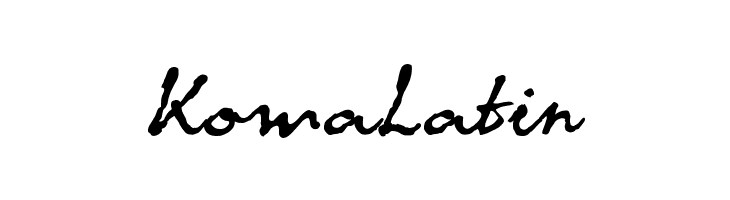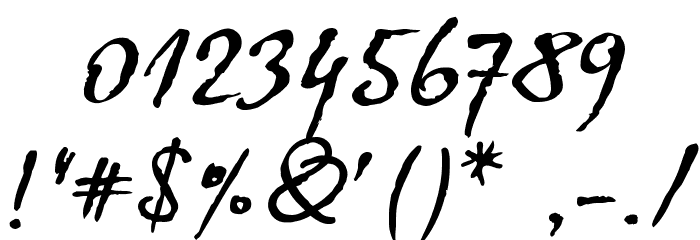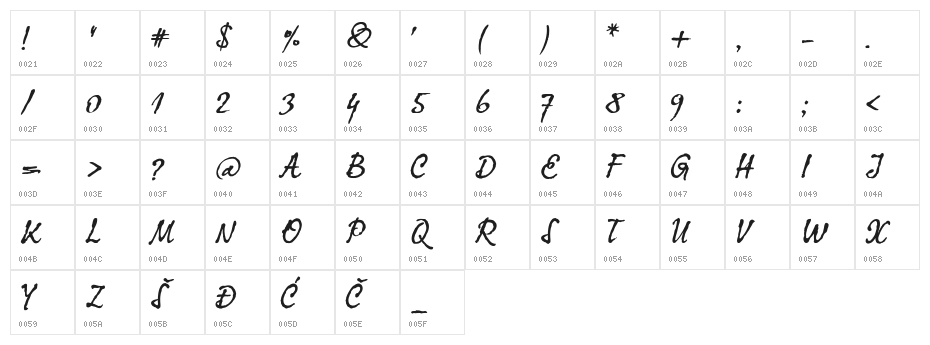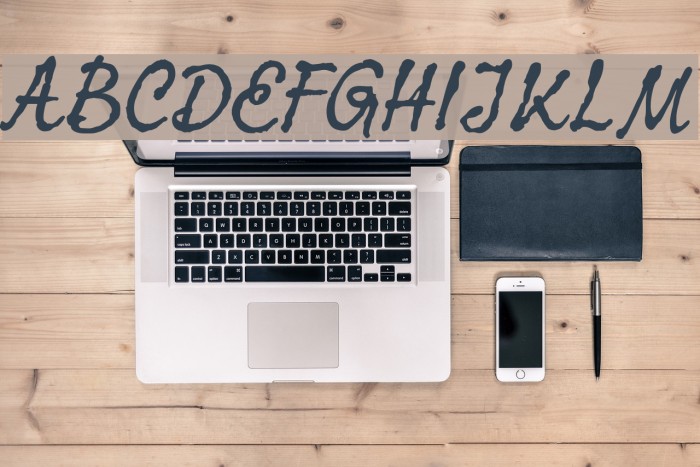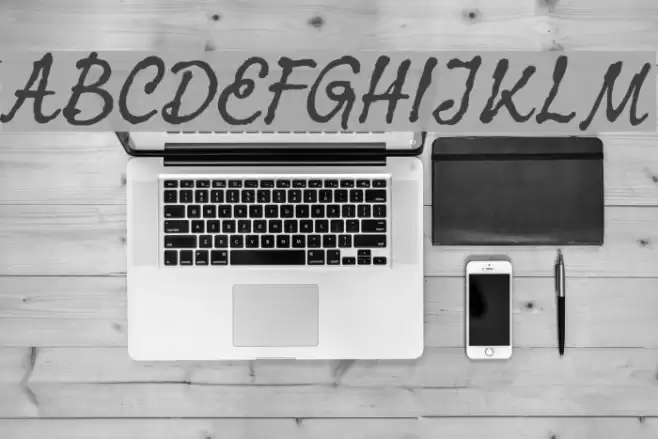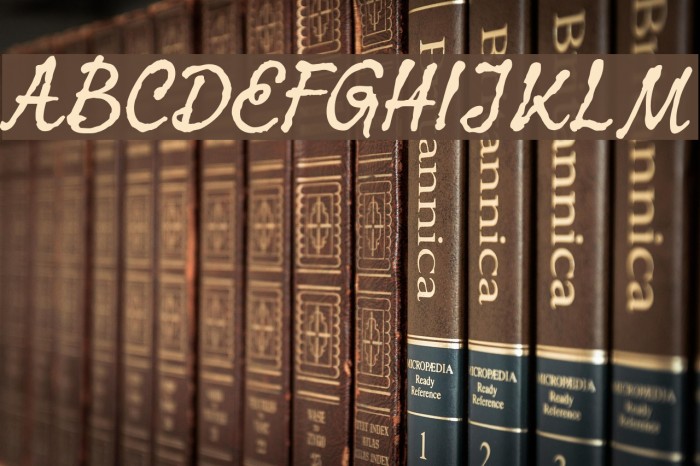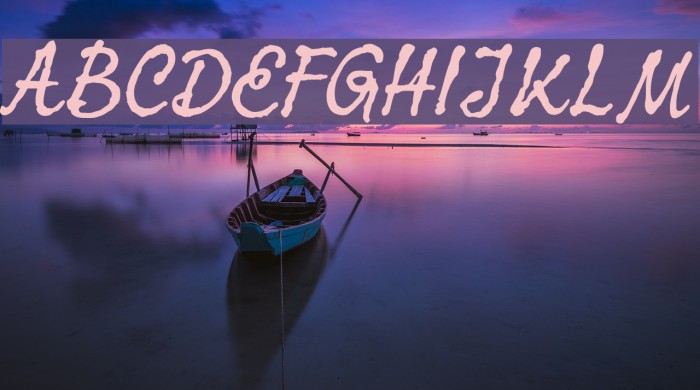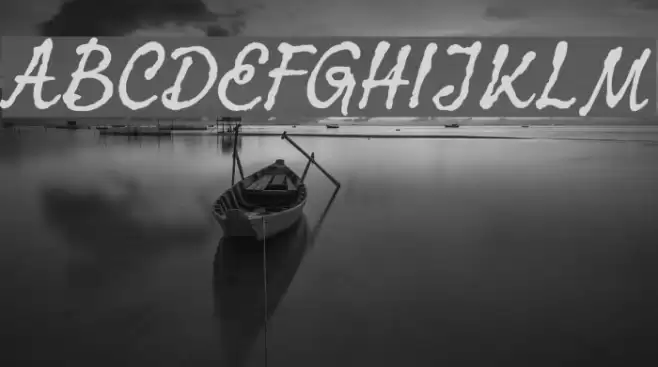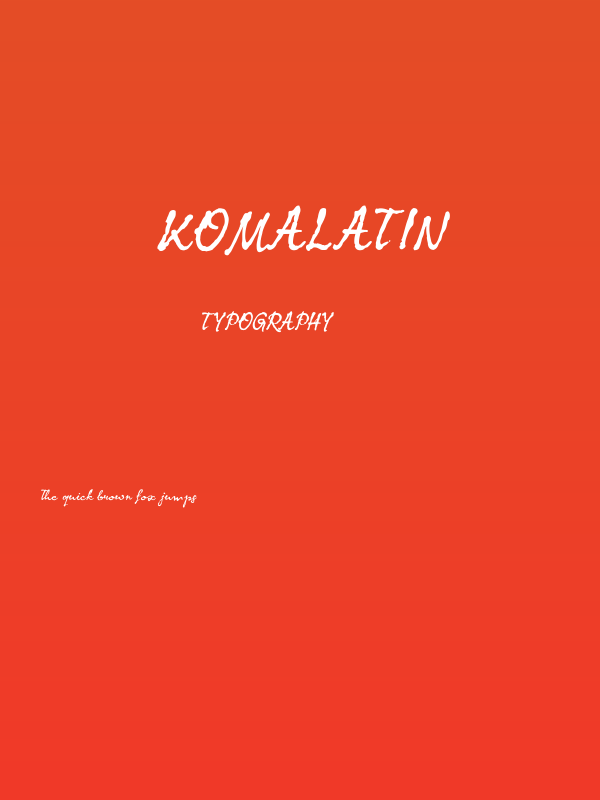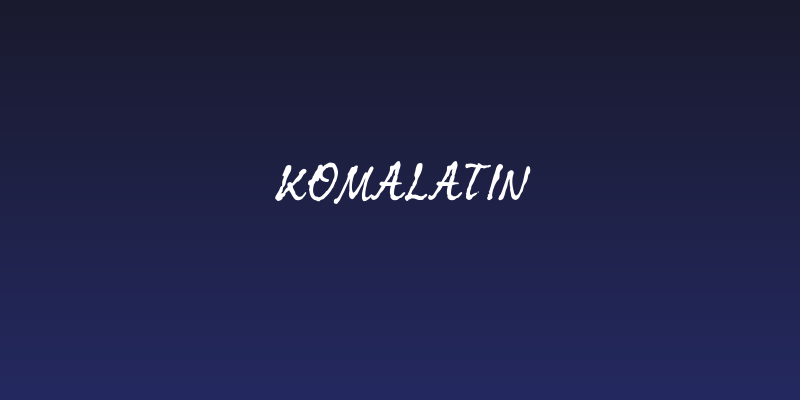
This font exudes a dynamic and expressive style, characterized by its fluid, cursive script that mimics the natural flow of handwriting. The letters are connected with smooth, sweeping strokes, giving it a lively and energetic appearance. The uppercase letters maintain a consistent height, while the lowercase letters feature elegant loops and curves. The numbers and special characters are designed to complement the overall script style, maintaining the same fluidity and grace. This font is ideal for projects that require a personal touch, such as invitations, greeting cards, or artistic branding.
| Proposed Projects | Ideal for invitations, greeting cards, artistic branding, and personal projects. |